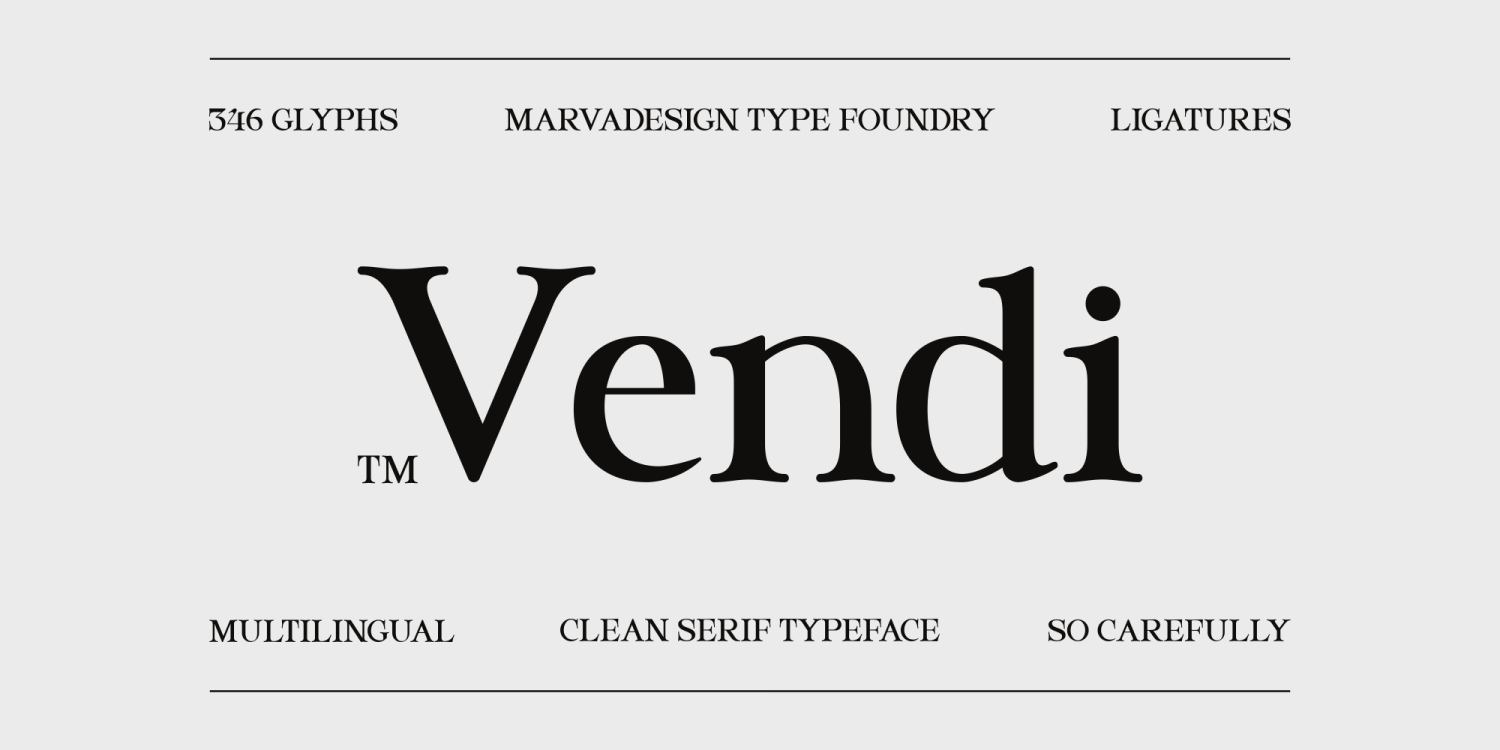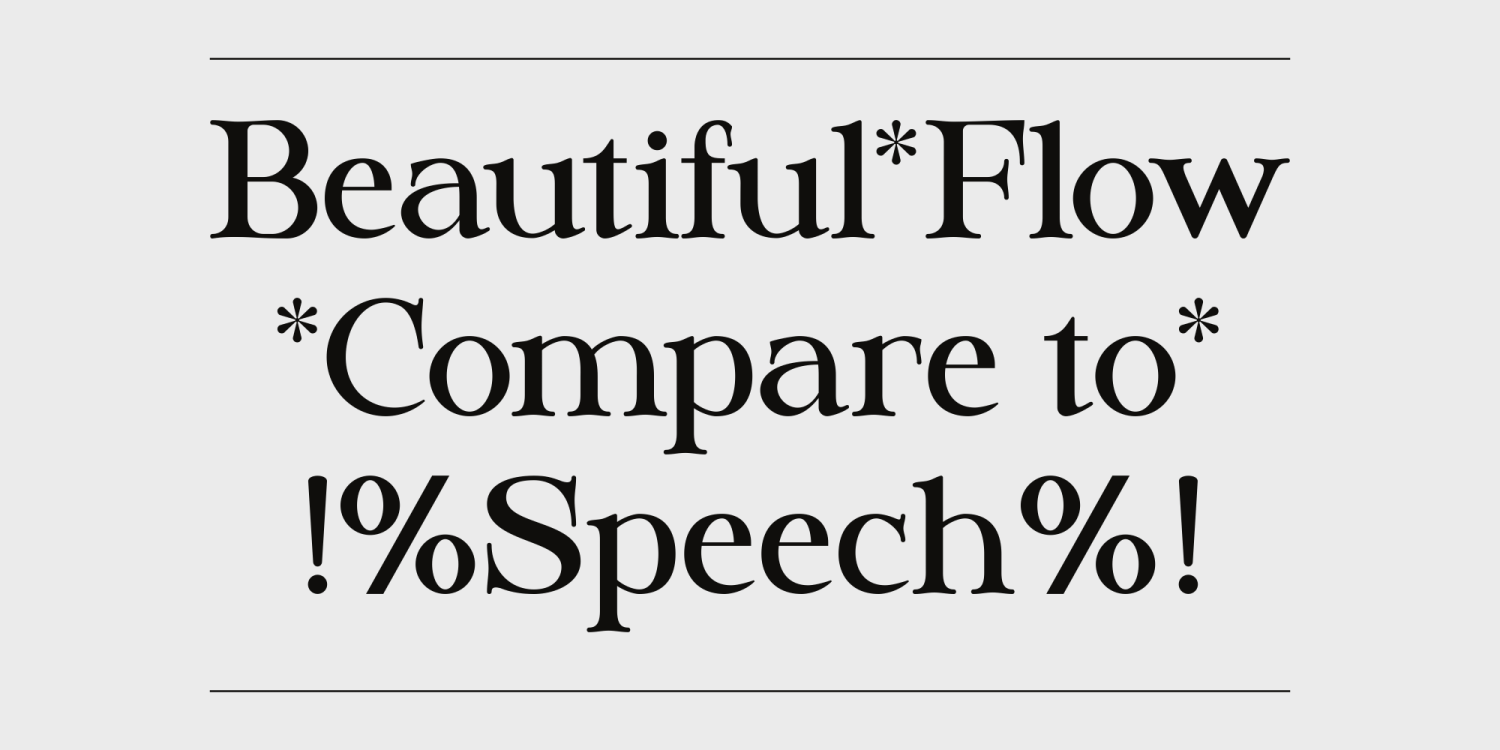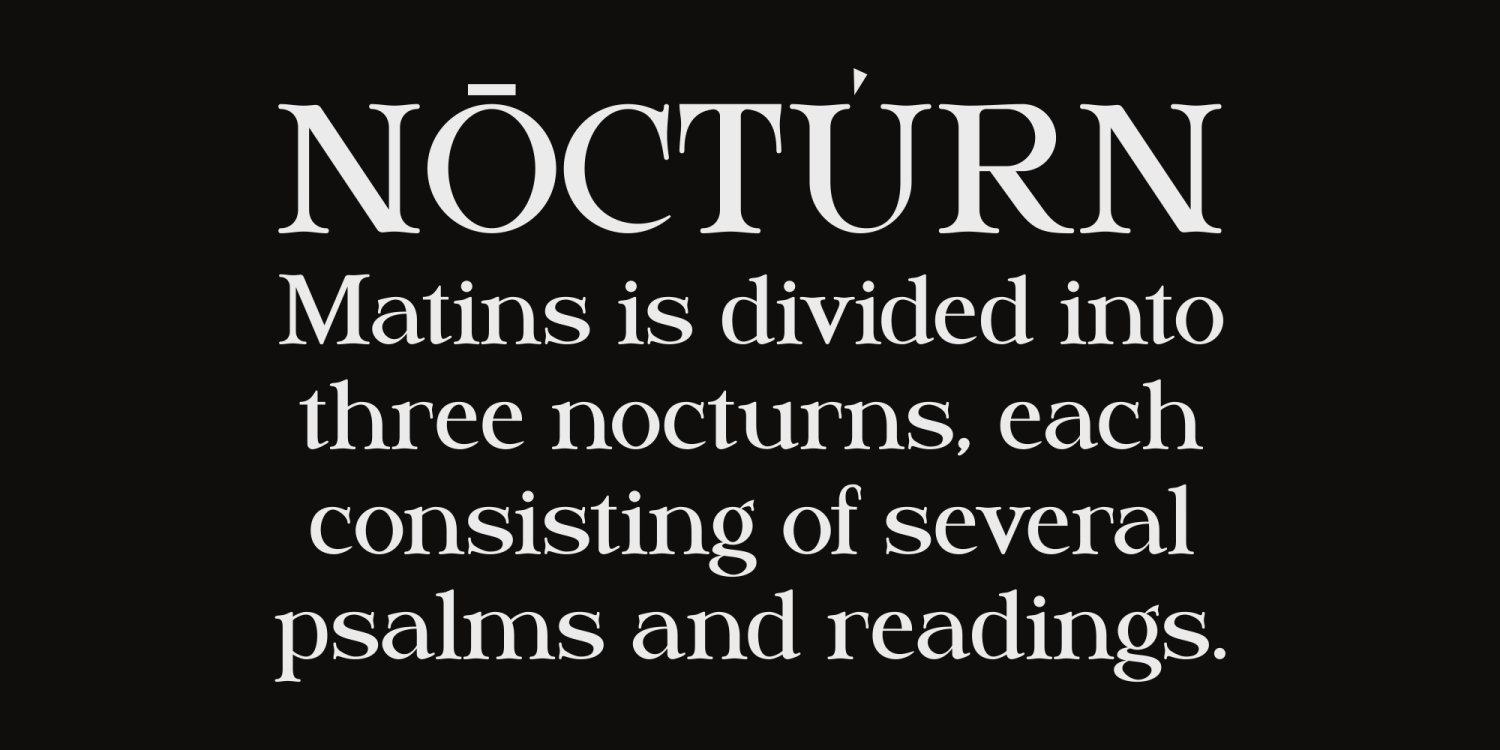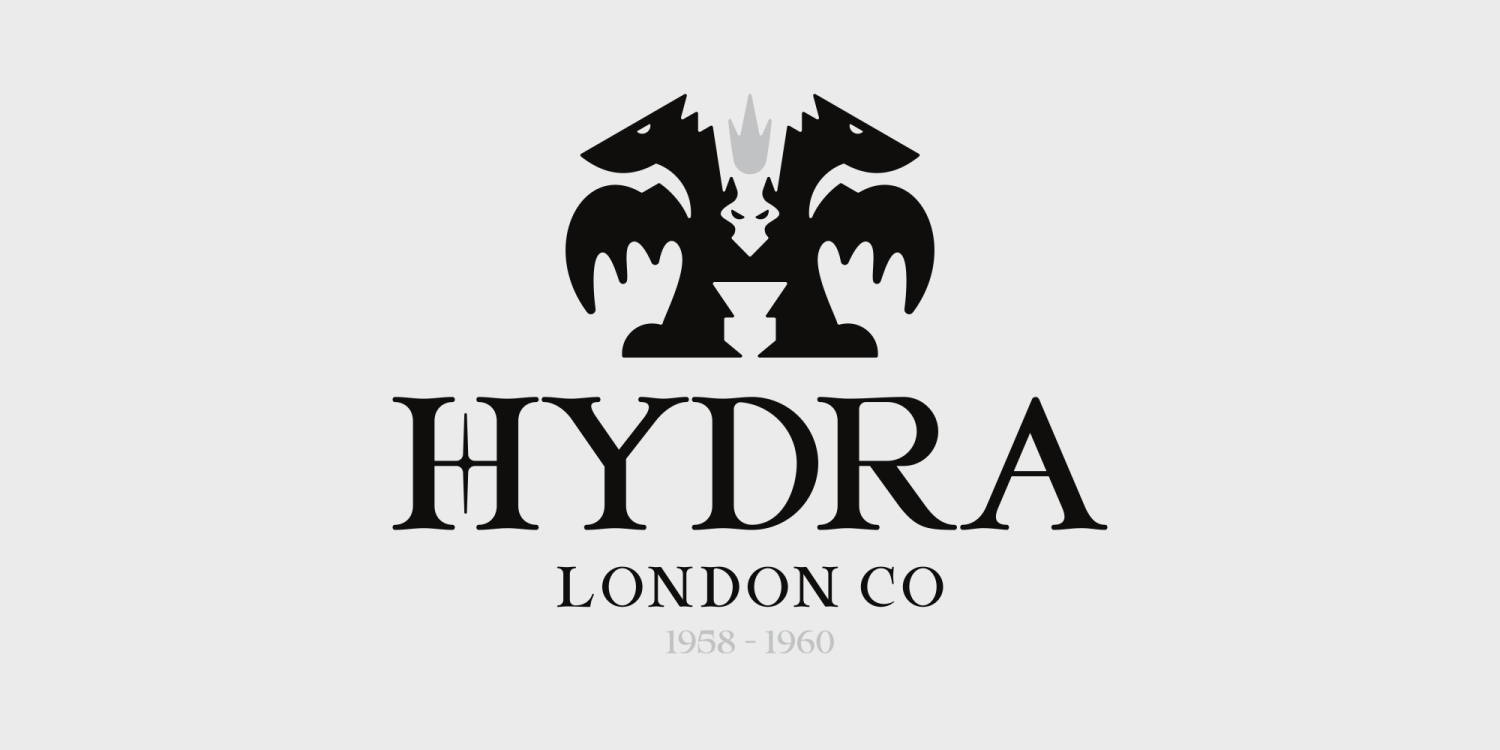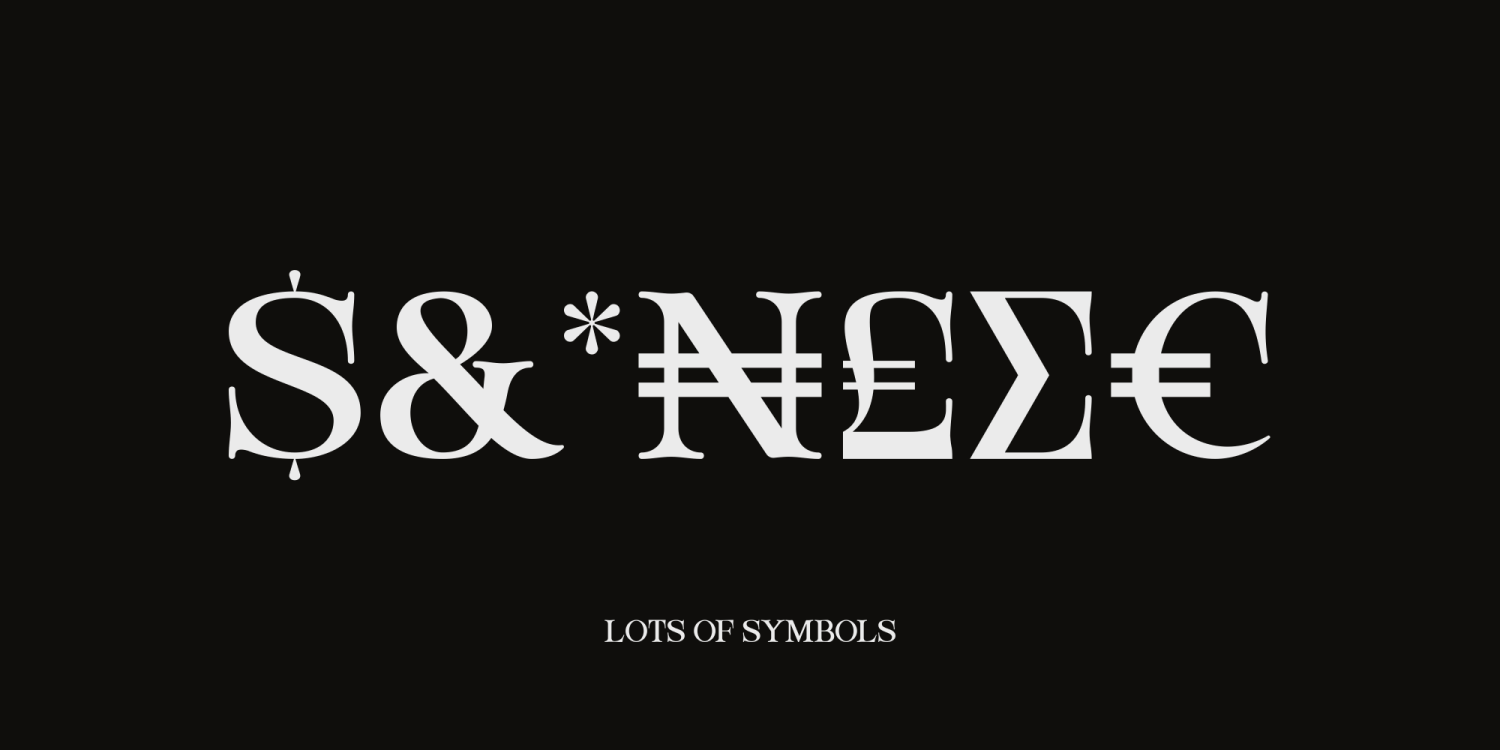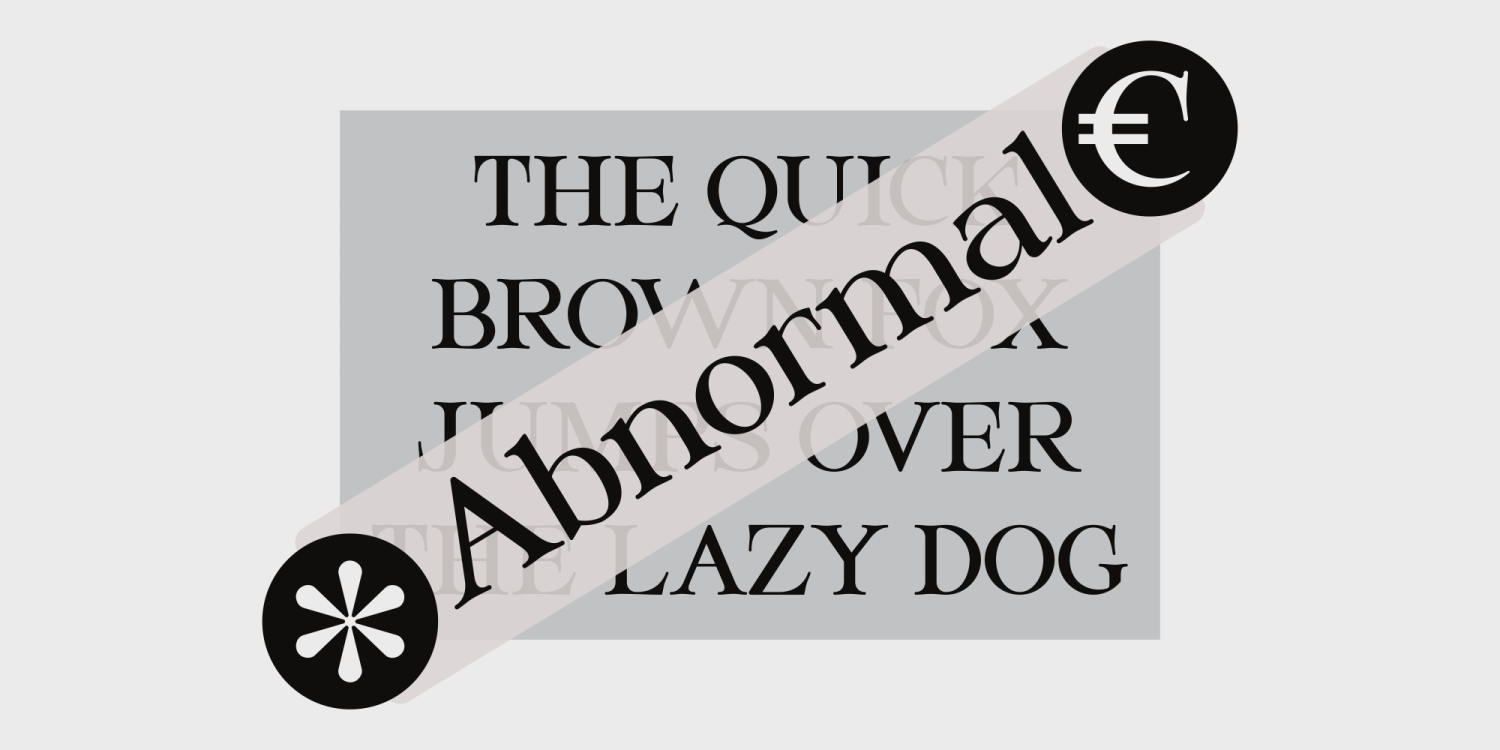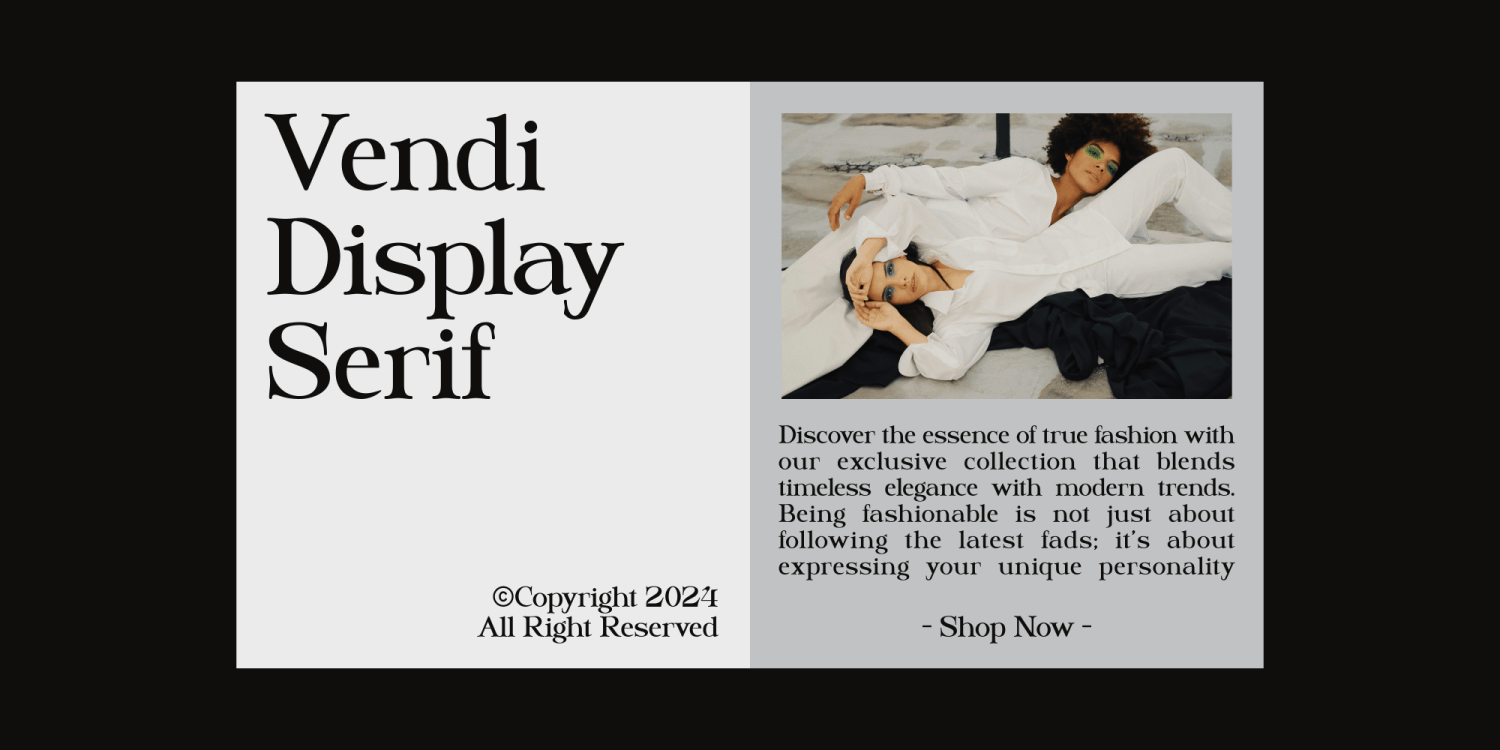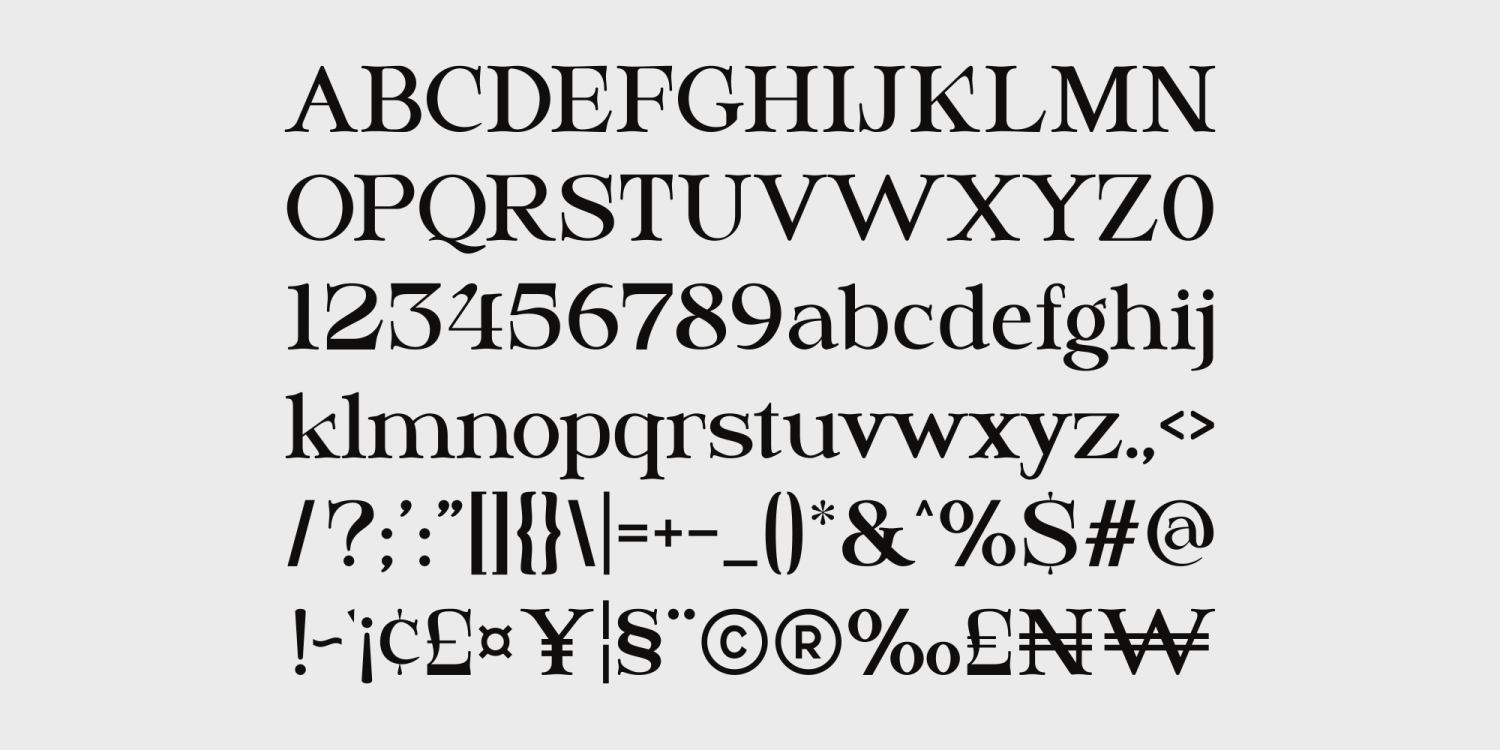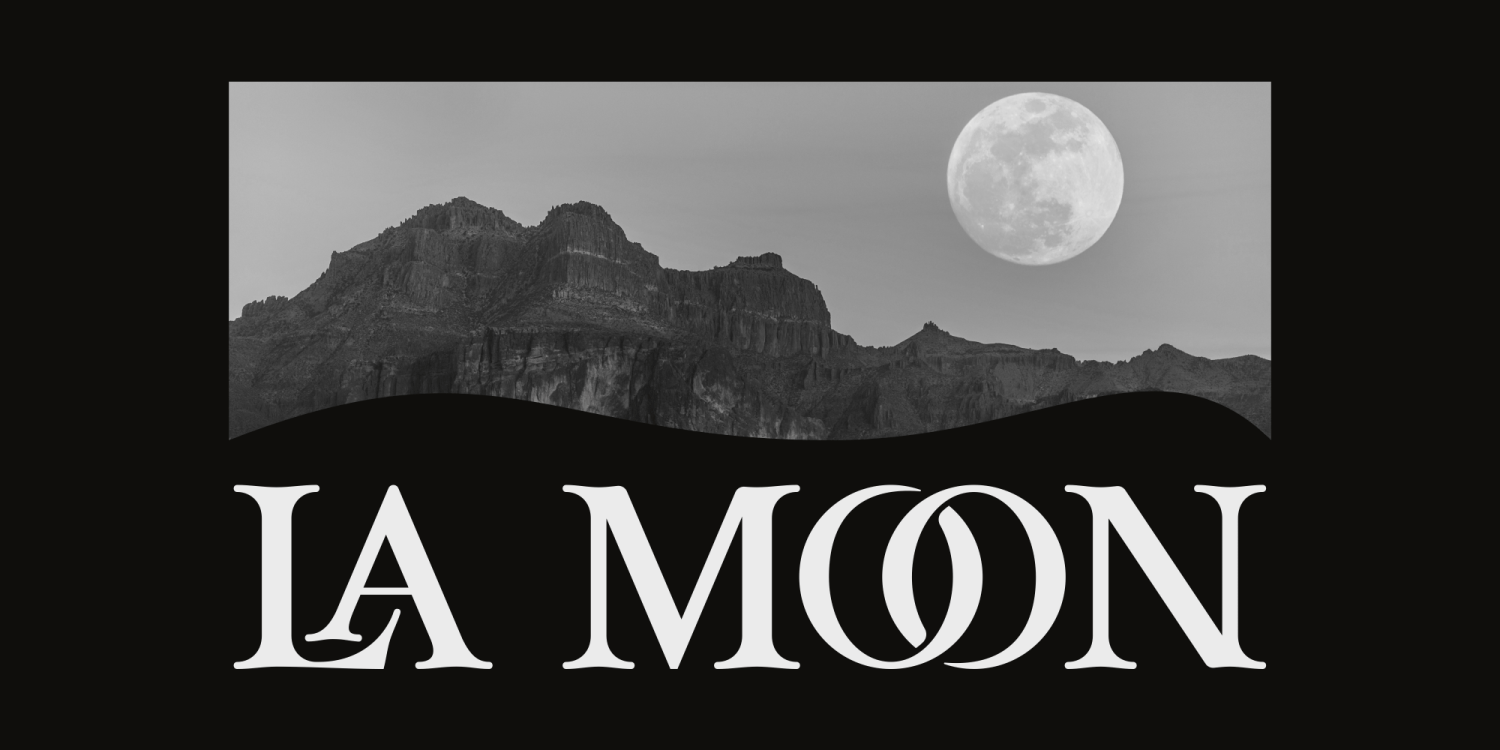
Vendi
Font Family by Marvadesign
Introducing Vendi font is a stylish Serif typeface characterized by its clean lines and unique features, especially its slightly curved serifs. The serifs, or the small decorative strokes at the end of the characters’ main strokes, exhibit a subtle curvature that sets Vendi apart from more traditional Serif fonts. This curvature adds a touch of elegance and personality to the font, giving it a distinct appearance while maintaining a clean and professional aesthetic. Overall, Vendi combines the classic sophistication of Serif typefaces with a modern twist, making it suitable for a wide range of design projects where clarity and uniqueness are desired.